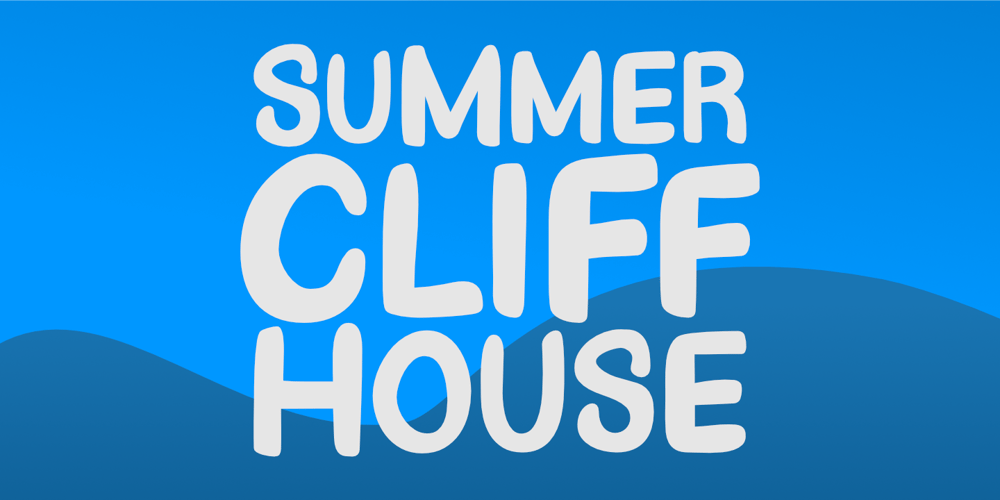
Summer Cliff House Font Family was designed by Nurul Hidayani and published by Olivetype. Summer Cliff House contains 1 styles and family package options. Summer Cliff House is a bold and fun typeface. Its casual vibe will help you create designs that are sure to bring a smile to everyone’s face. From party invitations to beach-themed designs this font can help you look the best.So what’s included : Basic Latin Uppercase and Lowercase Numbers, symbols, and punctuations Multilingual Support. PUA Encoded and fully accessible without additional design software Simple Installations works on PC & Mac Thank You and Happy Designing!